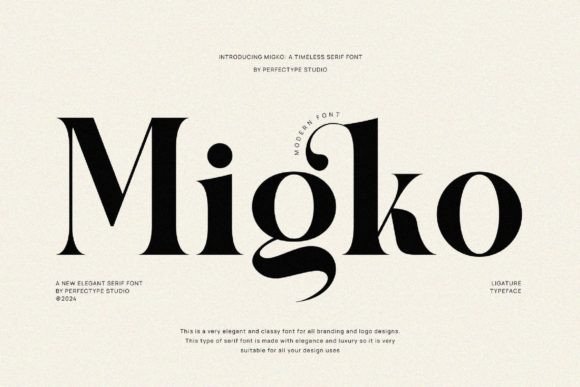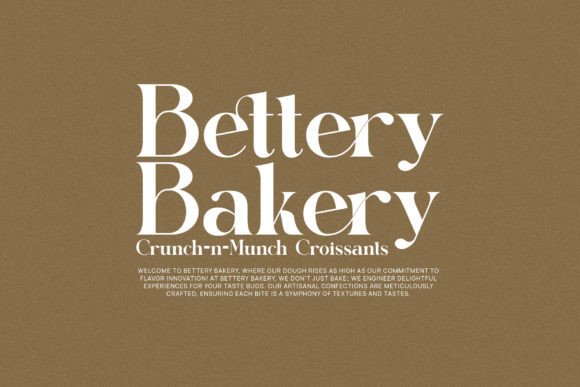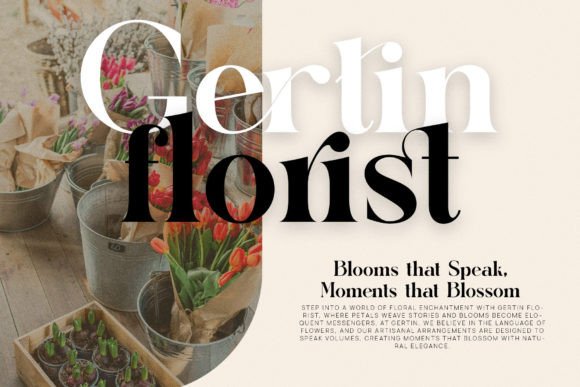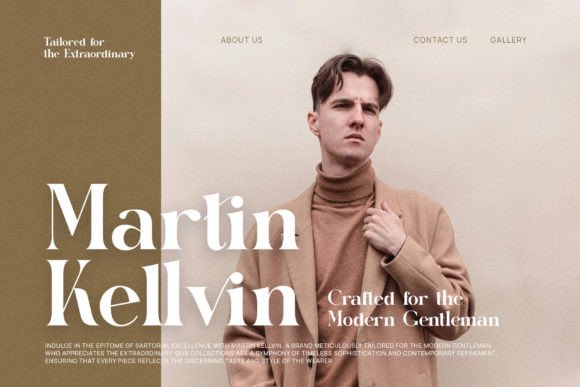
Migko Font: Elegant Serif Typography for Modern Logo Design
About the Migko Font
Get ready to be inspired by Migko Font, a fresh and dynamic typeface for modern creators. Migko: A classy font with fancy connections between letters. It looks fancy and stylish. Great for making things look elegant and special.
Migko’s elegant, high-contrast design makes it ideal for headlines, logos, short text blocks on invitations or packaging, and even short-form editorial pieces where impact is key. Its decorative nature, however, makes it less suitable for body text or UI elements where readability is paramount; long paragraphs set in Migko would be difficult to read.
The font exudes a sophisticated, slightly formal personality. For a balanced aesthetic, pair Migko with a clean sans-serif like Lato for body copy or a more geometric sans-serif for a modern feel. A classic serif like Garamond could also complement its elegance for a traditional yet refined pairing. Avoid pairing it with other highly decorative fonts, which might create visual clutter.
Consider Migko for brands aiming for a premium, timeless feel, such as luxury goods, high-end fashion, or bespoke services. Its classy connections add a touch of personality without being overwhelming.